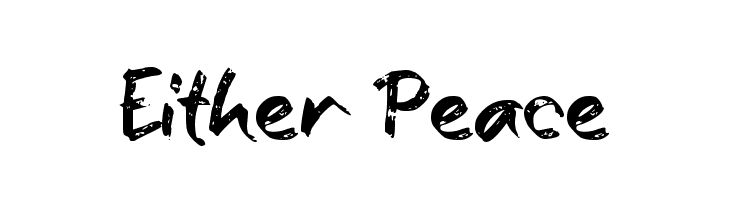
A playful, bold handwritten font with a casual and friendly vibe.
A dynamic and elegant script font with fluid strokes and a handwritten aesthetic.
A graceful, cursive script font with elegant, flowing characters.
A dynamic script font with fluid, elegant strokes and a modern calligraphic style.
A playful font with characters inside cracked eggs, perfect for whimsical designs.
A bold, playful font with rounded, organic shapes and a whimsical style.
An elegant, flowing script font with ornate curves and sophisticated swashes.
A bold, distressed font with a rugged, vintage aesthetic.
A bold, distressed font with a hand-drawn, rugged appearance.
A decorative font of uniquely styled cross symbols with bold, artistic designs.